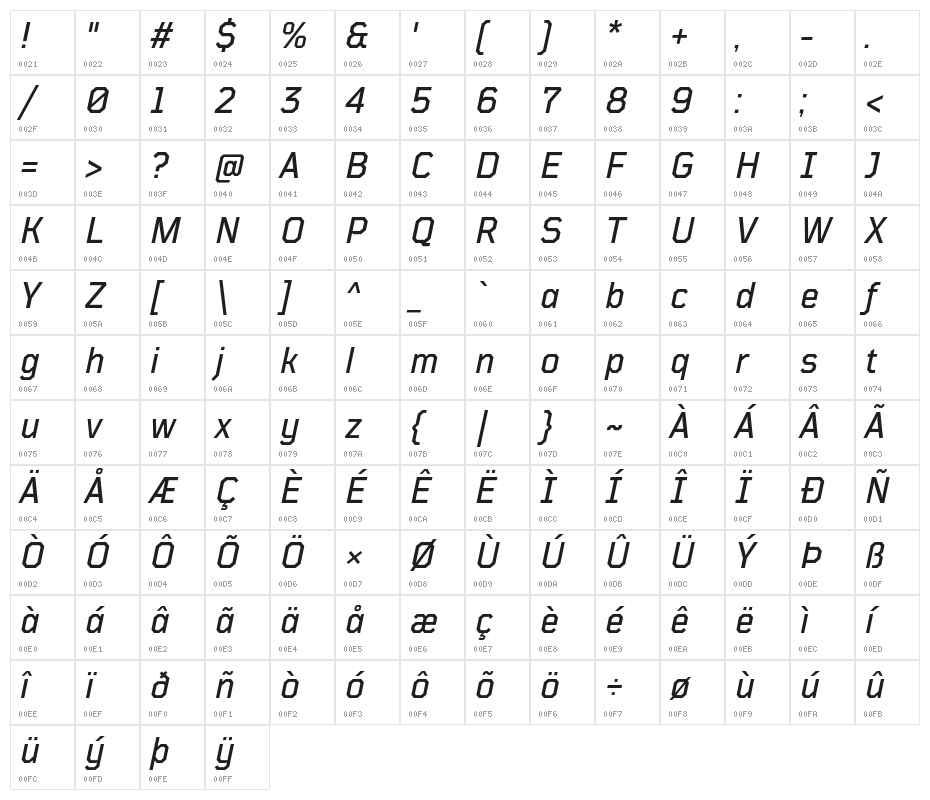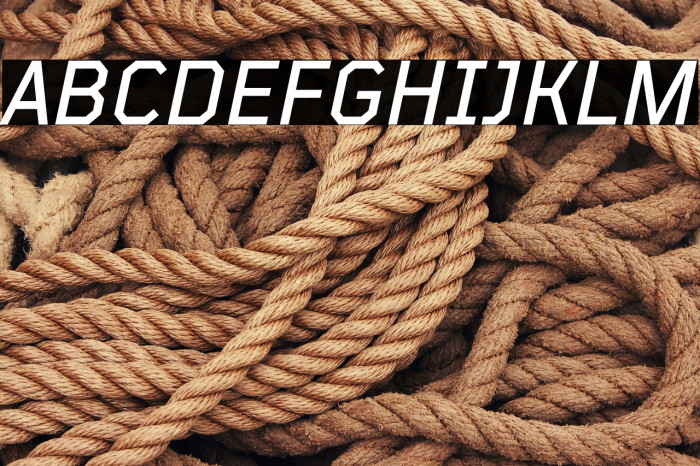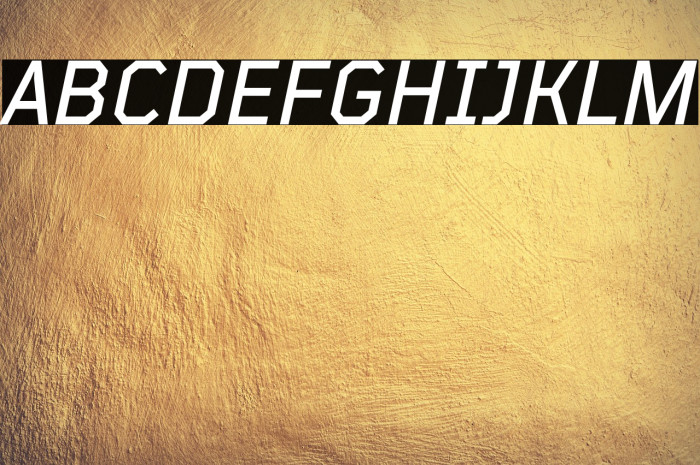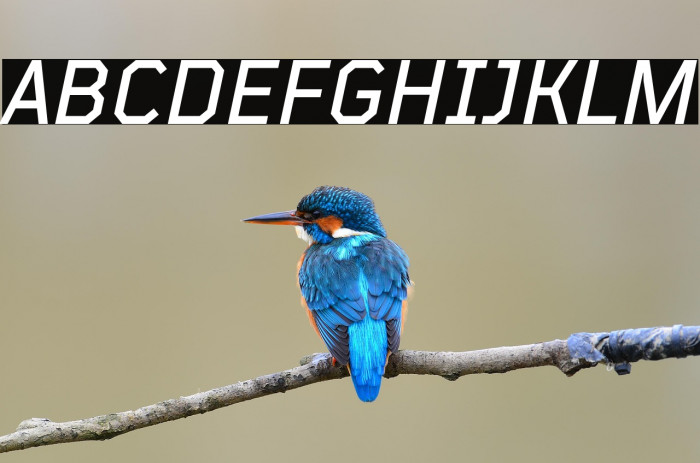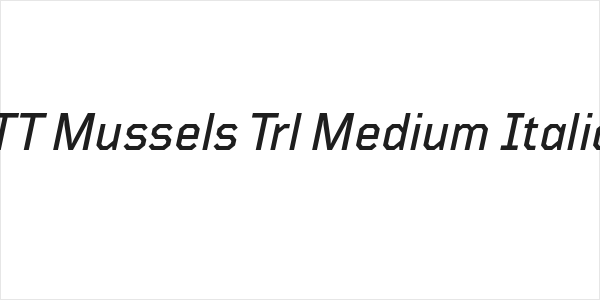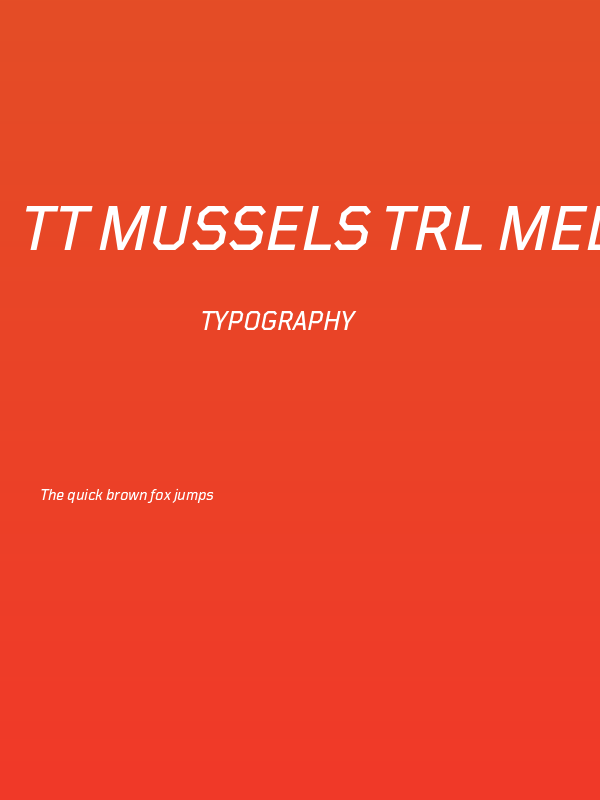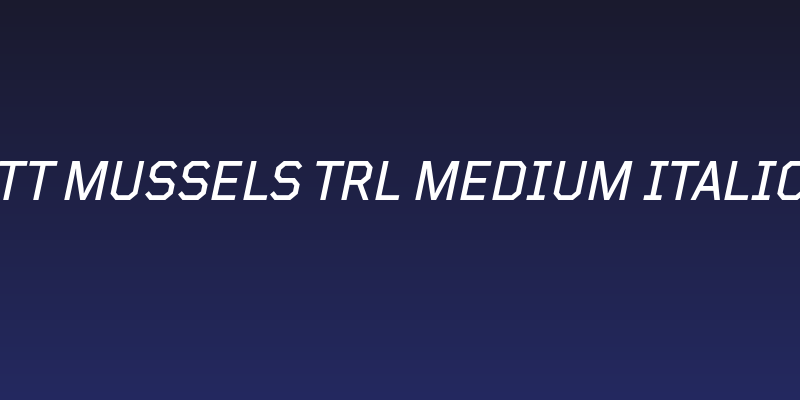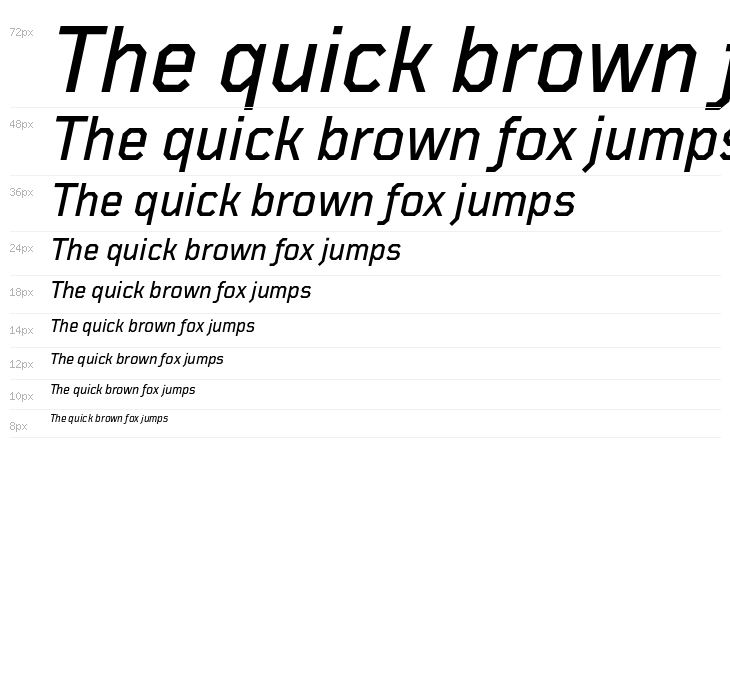
TT Mussels Trl Medium Italic Font
TT Mussels Trl Medium Italic Description
This font features a modern, italicized style with a geometric and slightly condensed appearance. The characters are clean and angular, providing a sense of precision and clarity. The uppercase and lowercase letters maintain a consistent slant, enhancing the italic effect. Numbers and special characters are designed with the same angular and geometric style, ensuring uniformity across all glyphs. The medium weight offers a balanced presence, making it suitable for various applications where readability and a contemporary look are desired.
| Use Case | Headlines, Logos, Digital interfaces |
| Proposed Projects | Ideal for tech branding, modern advertising, digital interfaces, and editorial design. |